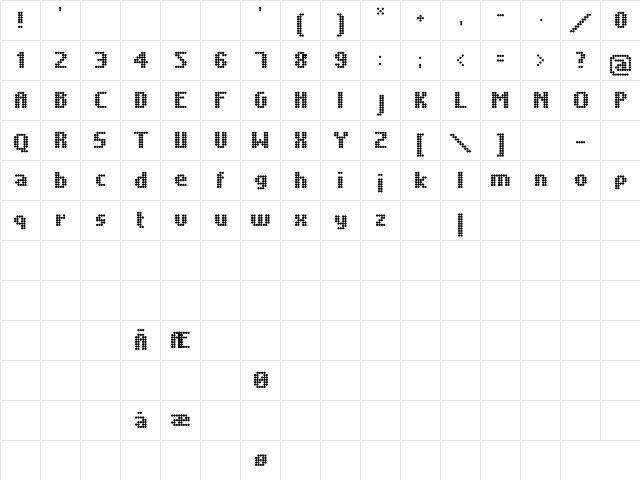
Unintended Regular
| Designer | Espen M. Kvalheim |
Design Context for Unintended Typeface
Unintended takes a measured approach to typography — its balanced proportions and neutral character make it a reliable workhorse for both digital and print work.